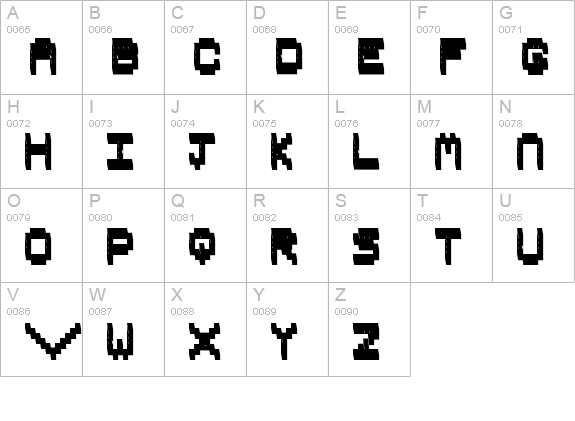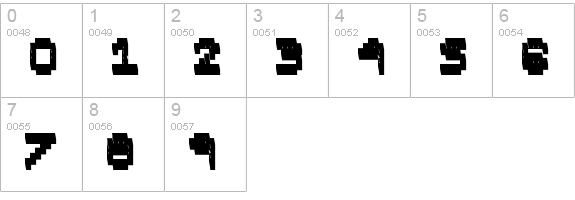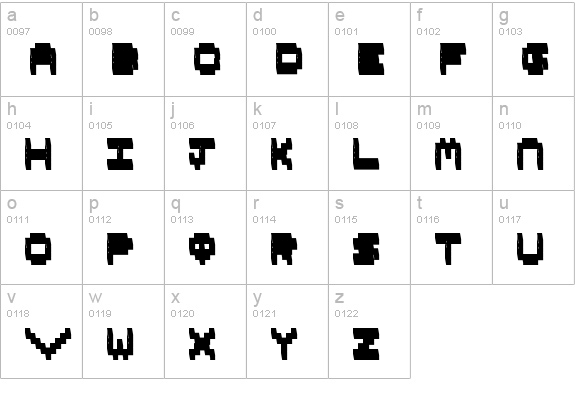
Pixel Book is a comfortable, highly readable variant in the Pixel typeface family \xE2\x80\x94 well suited to long-form body text, articles, and editorial content.
Introducing Pixel Book, a unique and versatile font that will bring a touch of modernity and sophistication to your designs. This exceptional typeface is perfect for a wide range of projects, whether you're creating eye-catching logos, stylish headlines, or professional-looking documents. Pixel Book embodies a balance between minimalism and elegance, making it suitable for both edgy contemporary designs and timeless classics. Its clean lines and carefully crafted letterforms ensure legibility and readability across various mediums, ensuring your message is delivered with clarity and impact. But what sets Pixel Book apart from other fonts is its accessibility - it is available for free to download at FontsMarket.com. Yes, you read that right! This high-quality typeface can be yours without any cost, making it an invaluable resource for both professional designers and enthusiasts alike. Whether you're a seasoned graphic designer or just starting out, Pixel Book will inspire your creativity and elevate your projects to new heights. With its extensive character set and multiple weights, you have the freedom to experiment and create unique compositions that perfectly reflect your vision. So why wait? Don't miss out on this incredible opportunity to enhance your designs with Pixel Book. Download it for free at FontsMarket.com and unleash your creativity today.